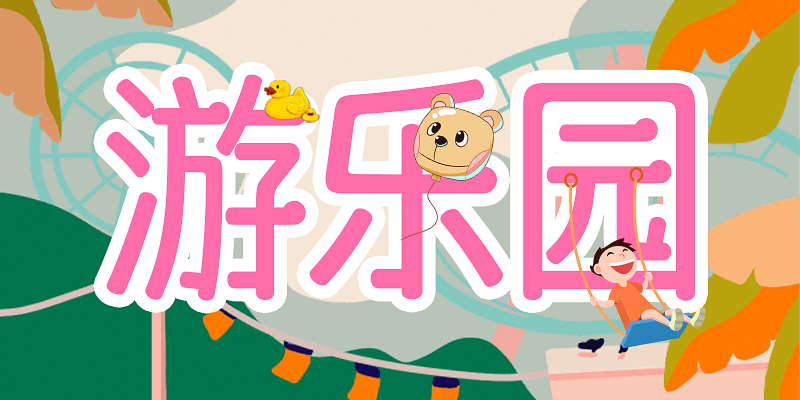
HelloFont ID Le Yuan Font Free Download is a whimsical and joyful Chinese display font designed to infuse your designs with happiness and charm. The name “Le Yuan” (乐园) translates to “Paradise” or “Playland,” and the font perfectly captures that mood with rounded strokes, playful curves, and an overall friendly tone. It’s ideal for children's books, toy packaging, birthday party invitations, educational content, or any design that needs a lighthearted and cheerful vibe.
The font combines a casual, handwritten aesthetic with excellent readability—making it suitable for both large display titles and short text. HelloFont ID Le Yuan Font Free Download includes simplified Chinese characters along with basic Latin support, making it great for bilingual layouts or multicultural branding projects.
This typeface stands out in colorful, imaginative contexts where warmth and creativity take center stage. Whether you’re creating content for kids or simply want a font that radiates fun, Le Yuan adds a delightful personality to any visual story.
Cute, carefree, and full of positivity—HelloFont ID Le Yuan is the perfect typeface to bring a smile to your typography.